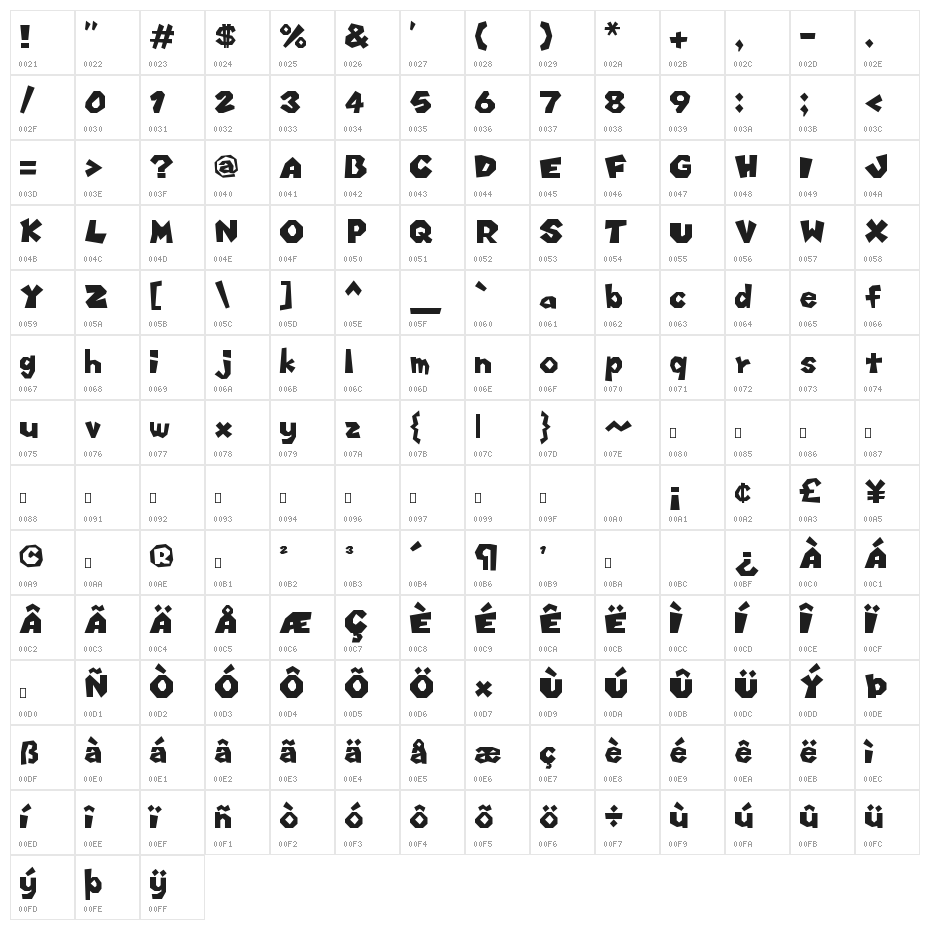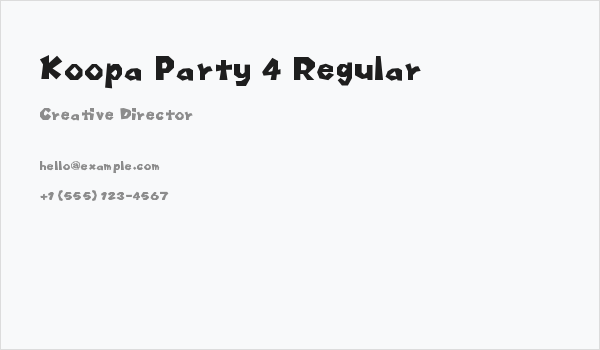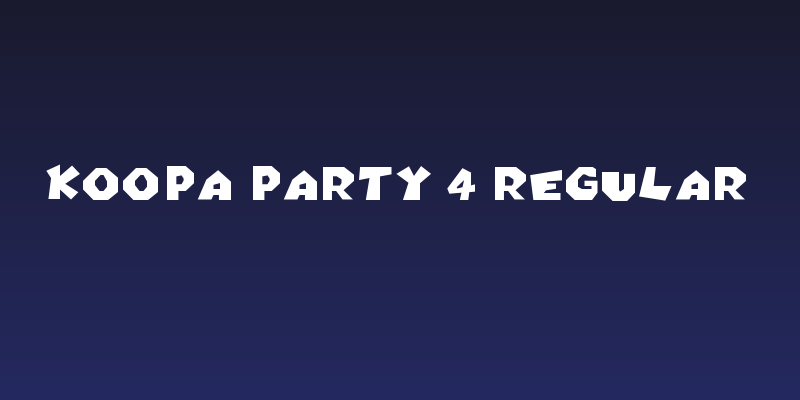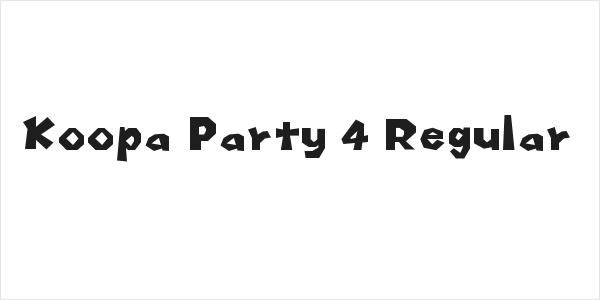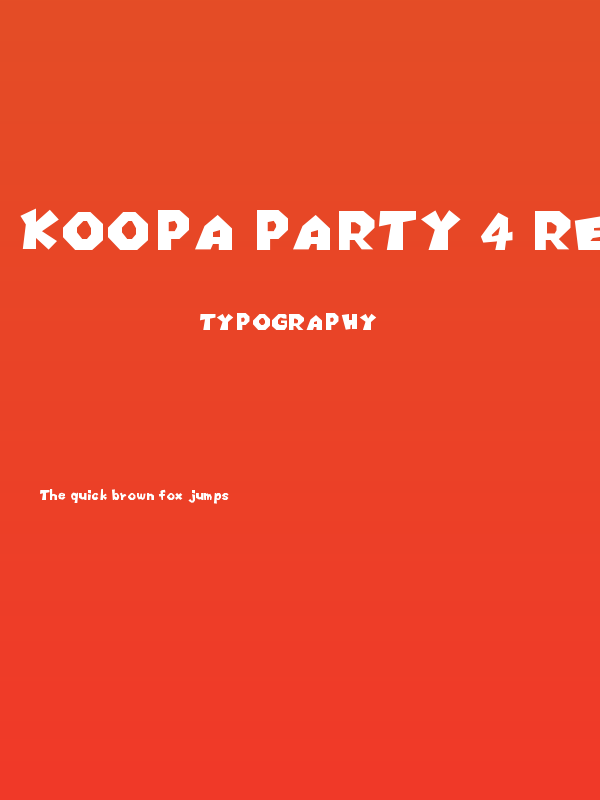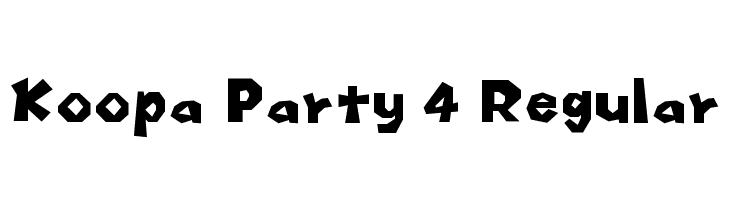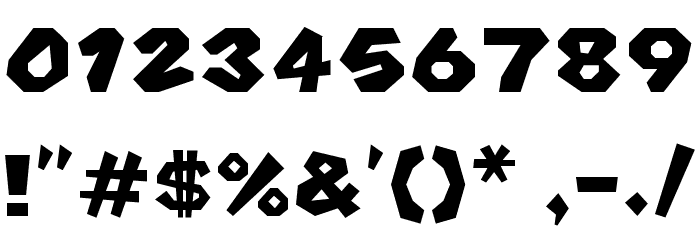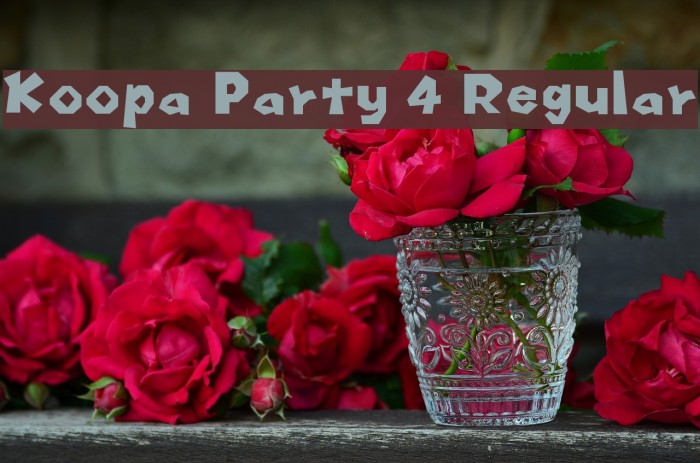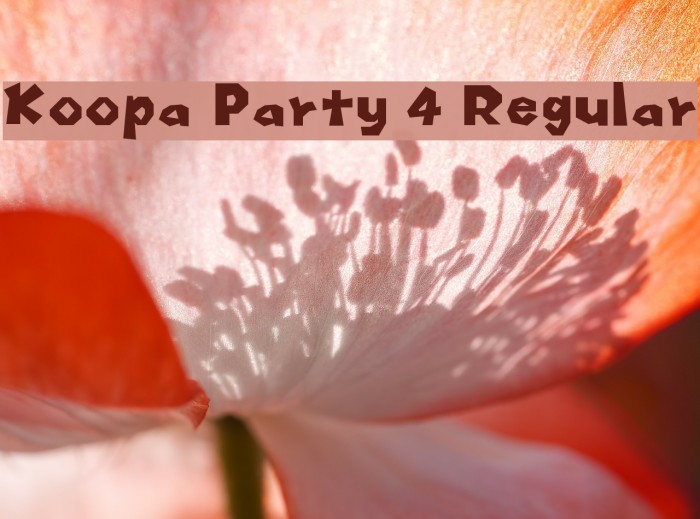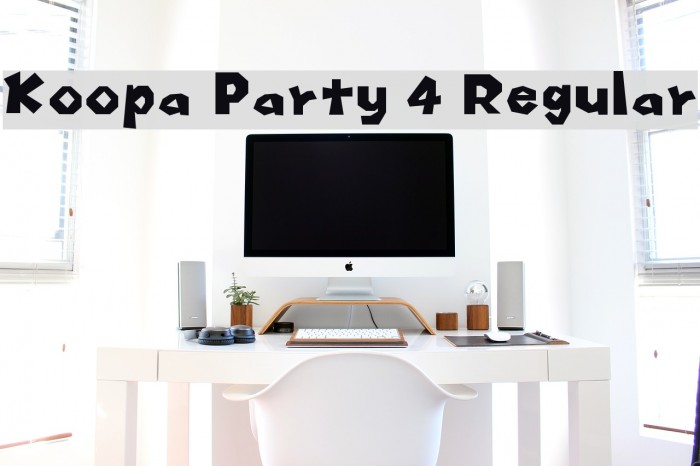
Koopa Party 4 Regular Font
Koopa Party 4 Regular Description
This font features a bold and playful design with a distinctly angular and geometric style. The characters are crafted with sharp edges and irregular shapes, giving it a dynamic and energetic appearance. The uppercase and lowercase letters maintain a consistent style, while the numbers and special characters complement the overall aesthetic. This font's unique design makes it stand out, offering a sense of fun and creativity.
| Overall Style | Playful, Energetic, Geometric |
| Proposed Projects | Ideal for video game graphics, children's book covers, party invitations, and playful branding. |